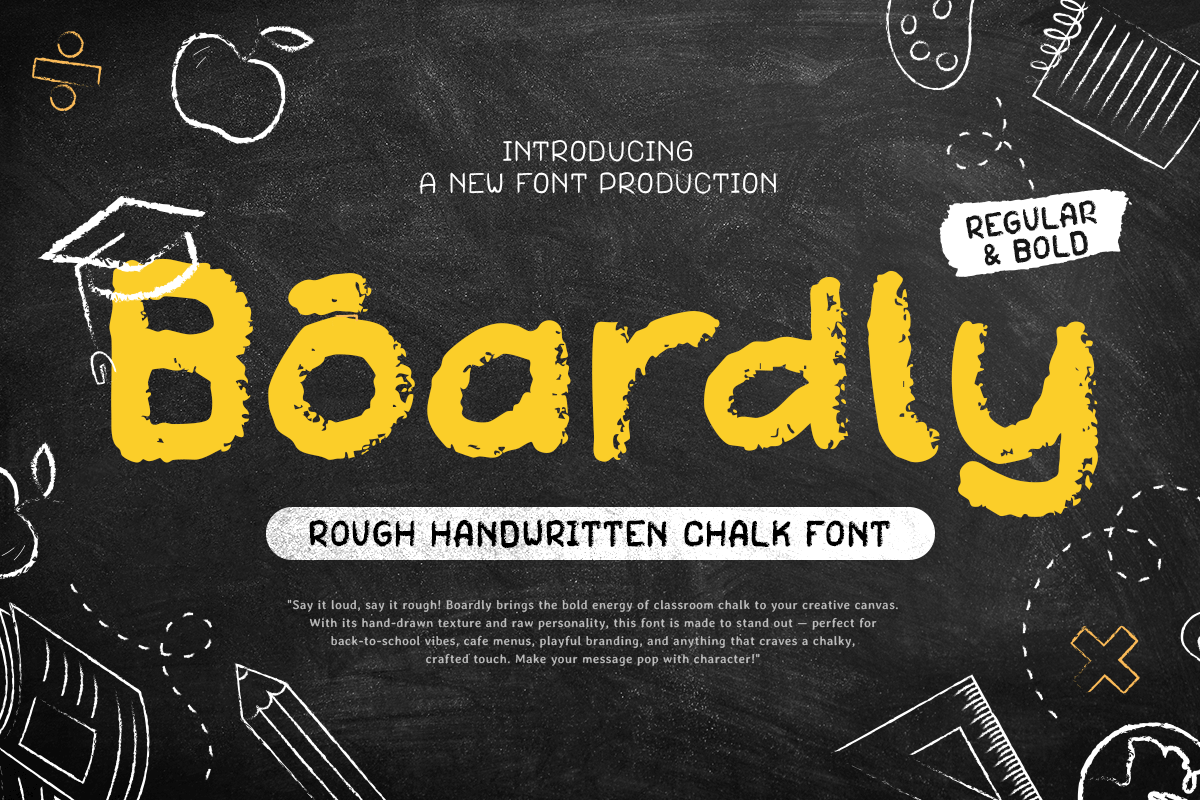
Boardly
-Rough Handwritten Chalk Font
Boardly - Rough Handwritten Chalk Font
Boardly is a rough handwritten chalk font that brings a casual, authentic, and artistic touch to your designs. Perfect for school projects, chalkboards, signage, posters, and creative branding, Boardly’s textured letters mimic natural chalk strokes for a hand-crafted feel. Its informal and playful style makes Boardly ideal for educational content, artistic projects, and fun creative designs.
Boardly – Rough Handwritten Chalk Font Features
• Rough chalk-inspired letterforms
• Available in 2 Weights: Regular & Bold
• Perfect for casual, school, and creative designs
Bring an authentic chalkboard feel to your projects with Boardly – the ultimate rough handwritten chalk font! ✏️